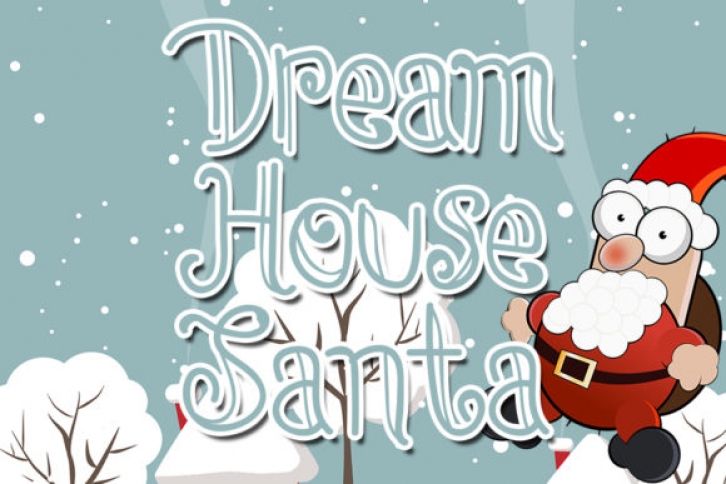
Dream House Santa is a sweet, delicate and stylish handwritten font. This gentle font will look gorgeous on a variety of design ideas. It will add a joyful and romantic touch to each of your projects!